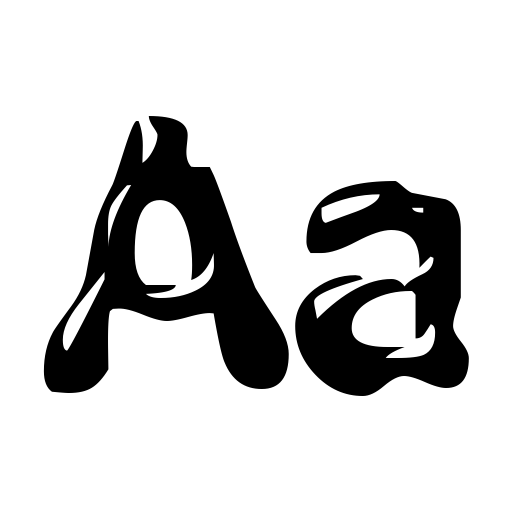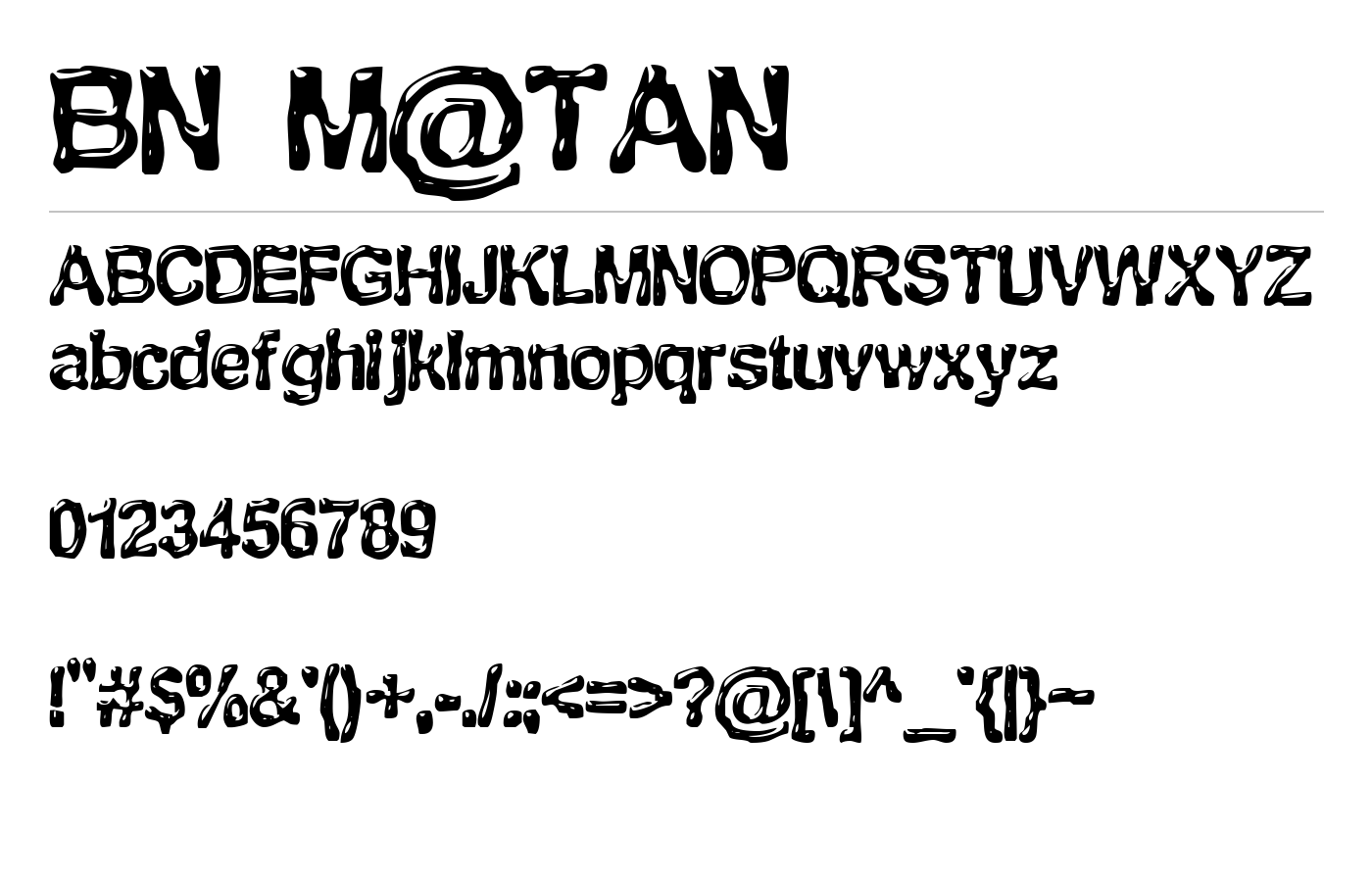
BN M@TAN is a bold, quirky display font with an irregular, hand-crafted feel, characterized by thick, uneven strokes and a playful, textured surface. Its unique style, featuring a mix of uppercase and lowercase forms with rough edges and artistic flair, makes it perfect for creative projects that seek a fun, distinctive, and eye-catching appearance. This font works well for poster headlines, branding, or any design where a lively, informal personality is desired.
BN M@TAN Font